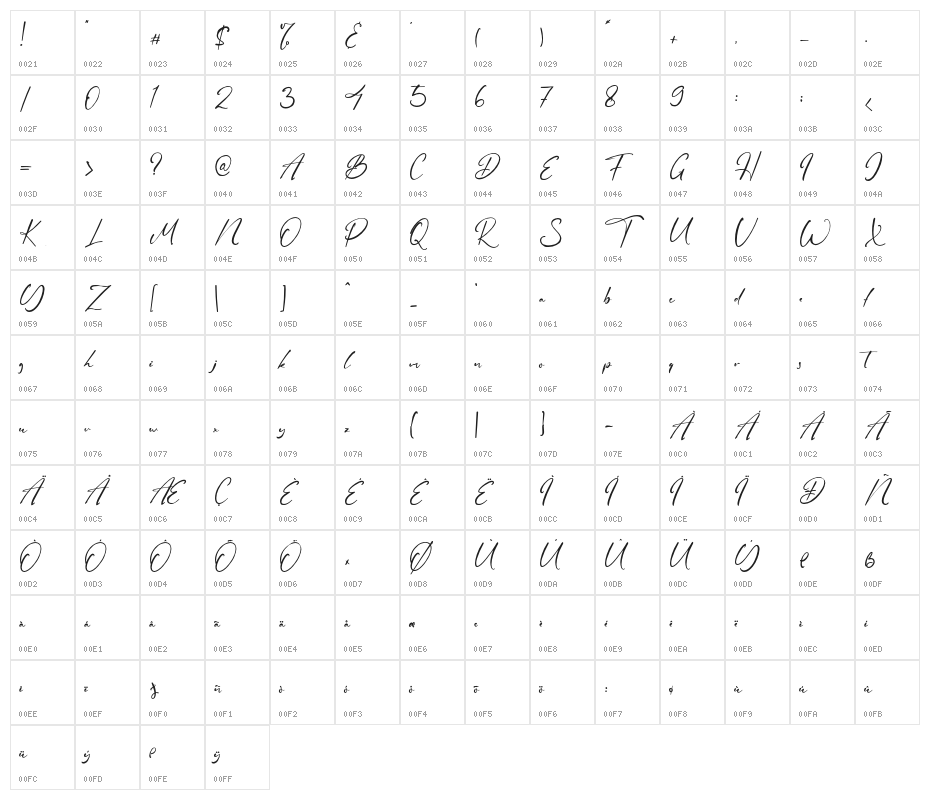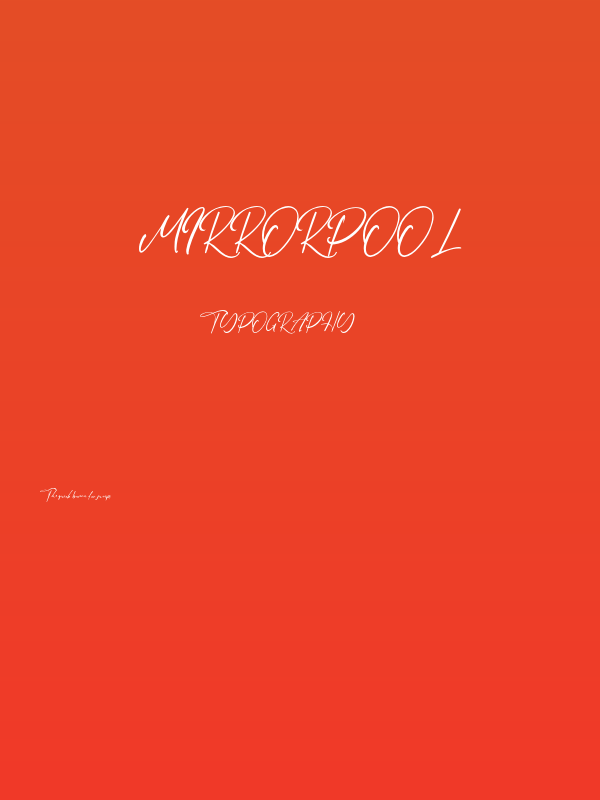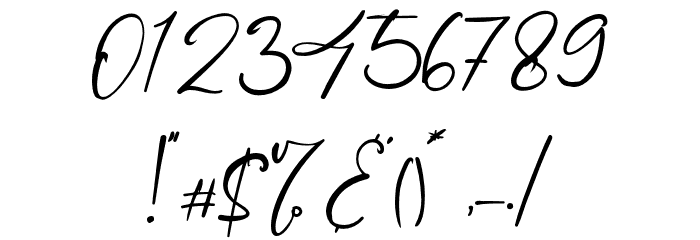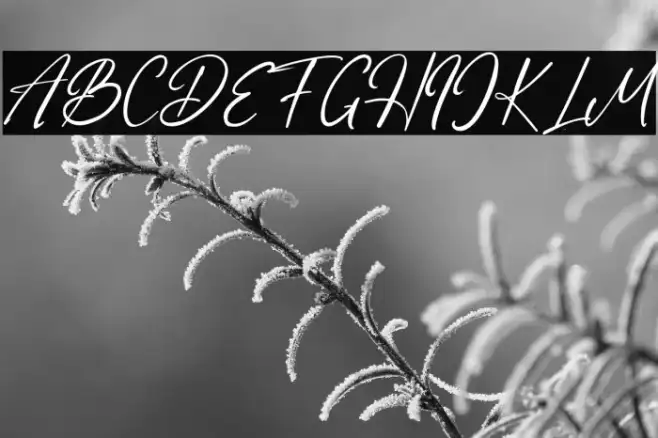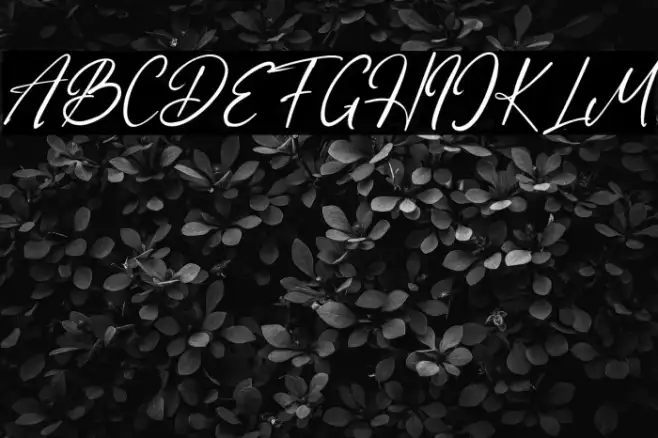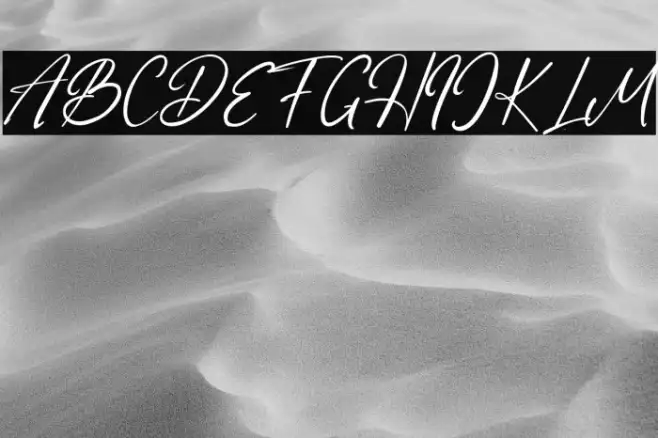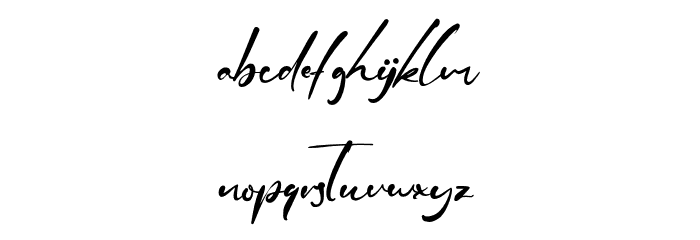
MirrorPool Font
MirrorPool Description
This font exudes elegance and fluidity, characterized by its cursive, handwritten style. The letters are gracefully connected, with smooth, flowing lines that give it a sophisticated and artistic appearance. The uppercase letters are particularly striking, with sweeping curves and a sense of movement. The lowercase letters maintain a consistent flow, enhancing readability while retaining a personal touch. Numbers and special characters are designed to match the overall aesthetic, ensuring a cohesive look. This font is perfect for projects that require a touch of elegance and personality.
| Proposed Projects | Ideal for wedding invitations, greeting cards, personal branding, and artistic projects. |